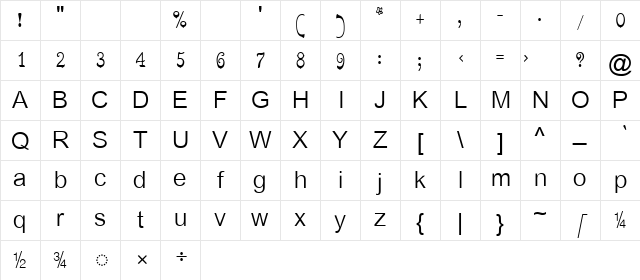
TAU_Elango_Thilllana Regular
Design Context for TAU_Elango_Thilllana
TAU_Elango_Thilllana is a composed and adaptable typeface that performs quietly and consistently across a wide range of design contexts.